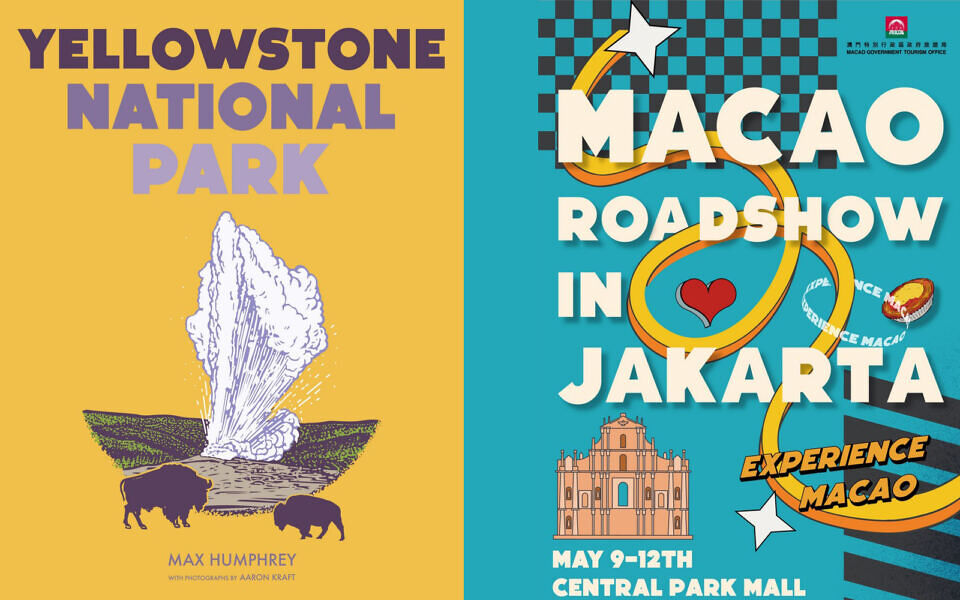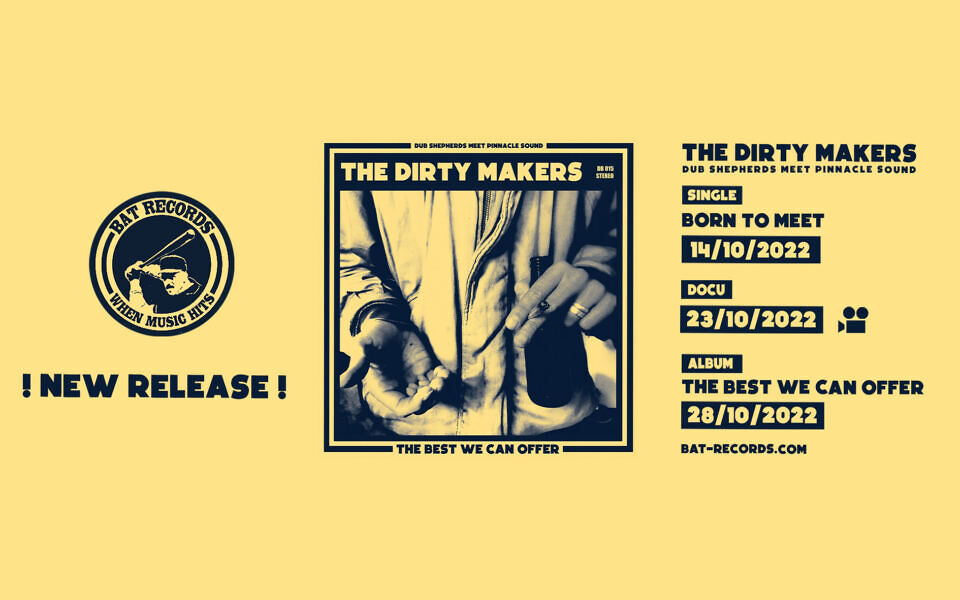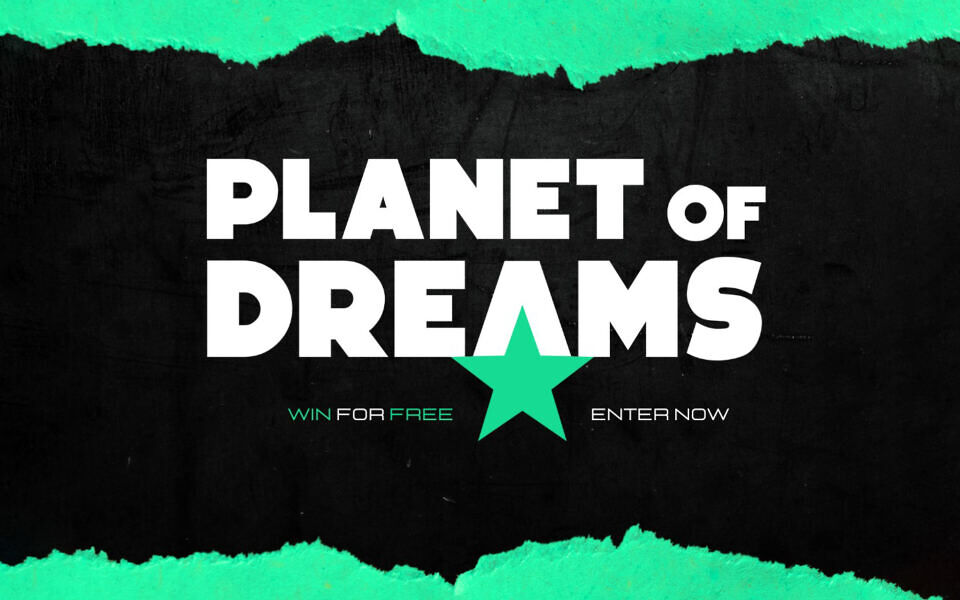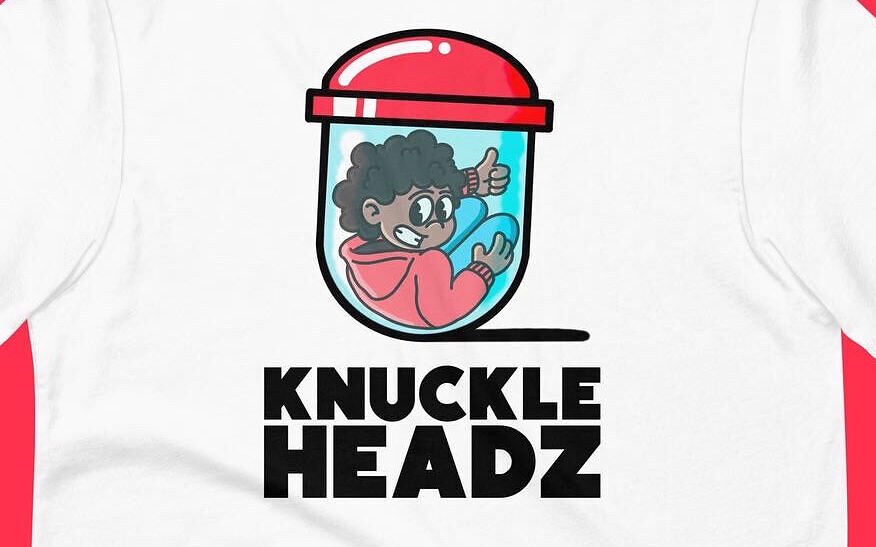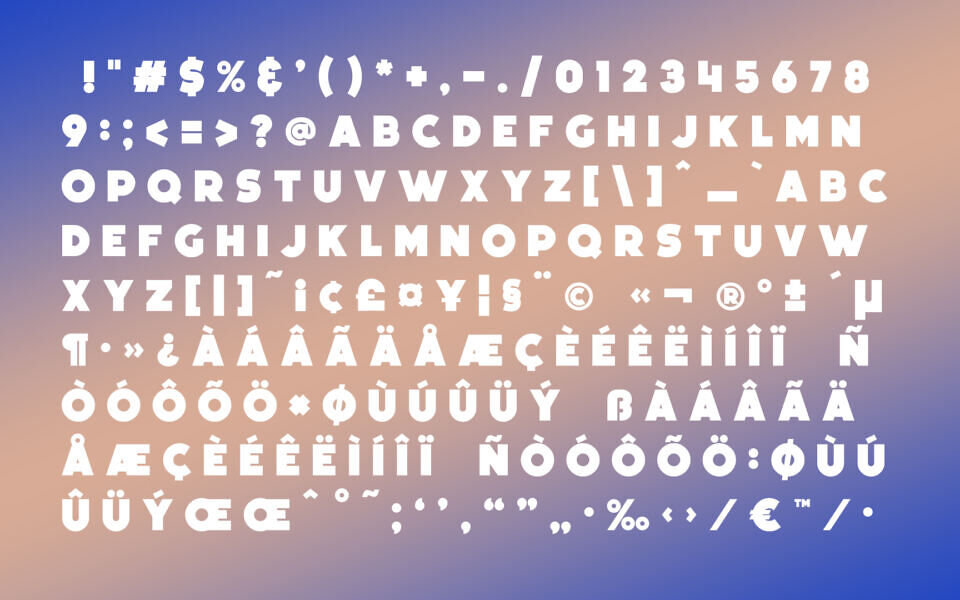
Boldfinger Font
Boldfinger is a bold geometric sans-serif font with a modern industrial style and strong visual impact. Its clean lines and street-sign-inspired design make it ideal for logos, posters, packaging, headlines, and branding projects. The thick letterforms ensure excellent readability while adding a confident, contemporary look to any design.
Designed by: Imagex Fonts